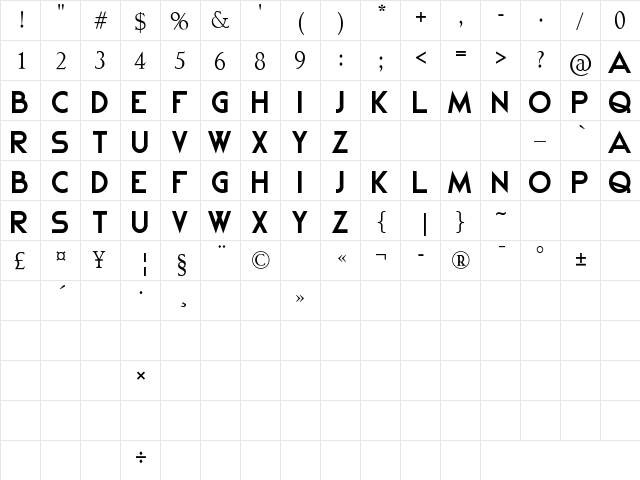
Kei Regular
Design Context for Kei Typeface
Kei offers clean, dependable letterforms without strong stylistic allegiance, making it a practical choice for designers who need flexibility.